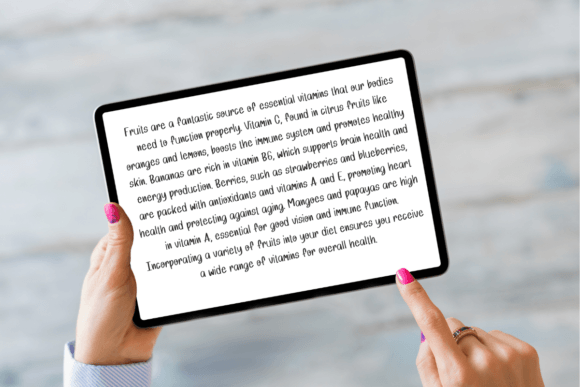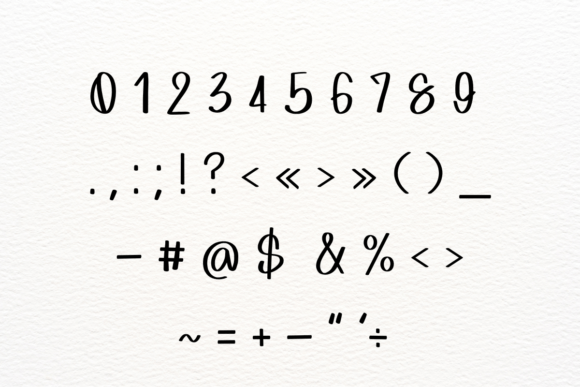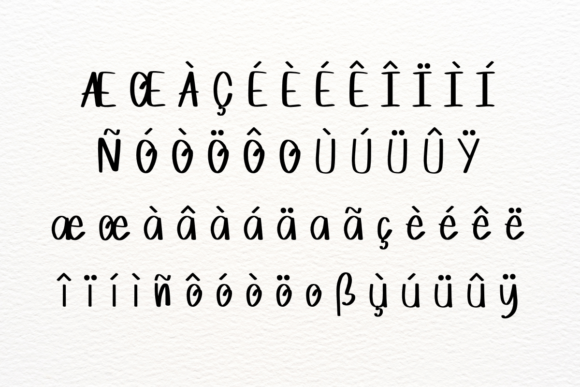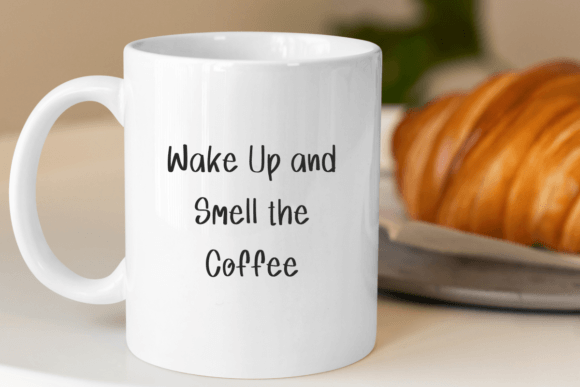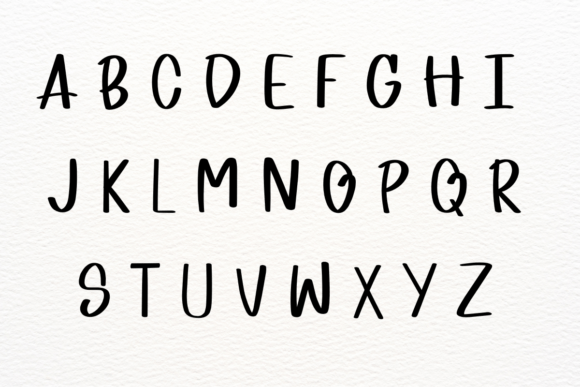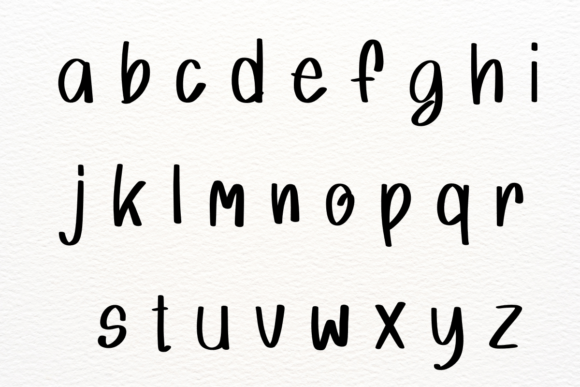
Introduction to Ohio Spring Font Font
Do you remember the moment when you stumbled upon the perfect font for your creative project? For me, it was a sunny afternoon spent browsing through a design resource website, and I came across the “OhioSpring Handwritten Font”. The delicate, flowing strokes immediately caught my eye, transporting me to a beautiful spring morning. The Ohio Spring Font Font is more than just a pretty face; it’s a valuable asset for designers looking to add a touch of elegance to their work.
As a design enthusiast, I can attest that finding the right font can make all the difference in a project’s success. With its high-quality design and transparent background, the Ohio Spring Font Font is perfect for wedding invitations, greeting cards, and personal branding. And the best part? It’s available for free download, making it an accessible resource for designers of all levels.
Whether you’re working on a creative project or simply looking to add some charm to your personal branding, the Ohio Spring Font Font is an excellent choice. Its versatility and beauty make it a valuable addition to any design library, and I’m excited to share more about this stunning typeface with you.
Key Features of Ohio Spring Font Font
• High-quality, professional design ideal for various creative projects
• Supports a wide range of languages, making it a versatile font choice
• Unique characteristics include elegant, cursive script and modern aesthetic, perfect for adding a touch of sophistication to designs
Honest Review: Ohio Spring Font Font
I recently stumbled upon the Ohio Spring Font Font while searching for a unique design resource for my creative project. As a designer, I was immediately drawn to its whimsical and playful feel, which I thought would be perfect for a children’s book illustration project.
Here’s what works well: ✨ The font is incredibly versatile and can be used for a wide range of creative projects, from greeting cards to merchandise design. The high-quality vector files make it easy to scale and manipulate the font without losing any of its charm. I also appreciated the transparent background, which made it easy to combine with other design elements.
Overall, I was impressed with the Ohio Spring Font Font and would definitely recommend it to designers looking for a unique and high-quality font for their creative projects. With a little bit of creativity, this font can add a lot of personality to your designs.
• Unique and versatile design
How to Use Ohio Spring Font Font
The Ohio Spring Font Font is a high-quality design resource that offers a unique and creative touch to your projects. With its transparent background, this font is perfect for adding a touch of elegance to your designs.
To get the most out of the Ohio Spring Font Font, experiment with different font sizes, colors, and combinations. This font is perfect for creating eye-catching titles, headings, and labels.
The Ohio Spring Font Font is ideal for use in creative projects such as branding, marketing materials, and social media graphics. Its elegant and sophisticated design makes it perfect for use in professional and business settings.
Alternatives to Ohio Spring Font Font
Alegreya Sans is a high-quality, free download font suitable for creative projects. It has a clean design and is ideal for use in modern designs. When to use: For modern and minimalist designs, especially those requiring a clean and simple aesthetic. How it compares to Ohio Spring Font Font: Alegreya Sans offers a more minimalist design and a wider range of font weights.
Playfair Display is a luxurious, high-quality font that is perfect for design projects requiring elegance and sophistication. When to use: For high-end design projects, such as luxury brand identities or elegant magazine layouts. How it compares to Ohio Spring Font Font: Playfair Display offers a more luxurious feel and is ideal for use in high-end design projects.